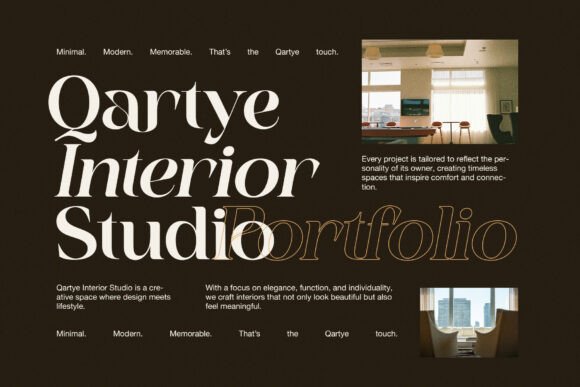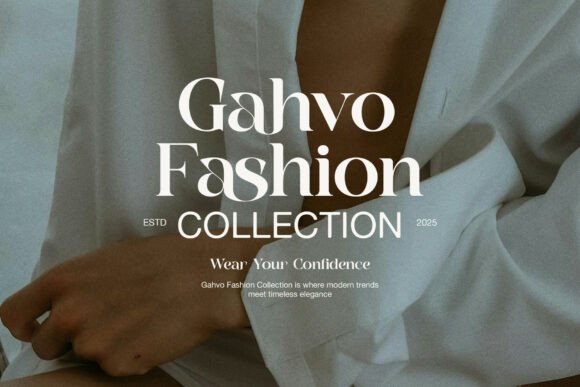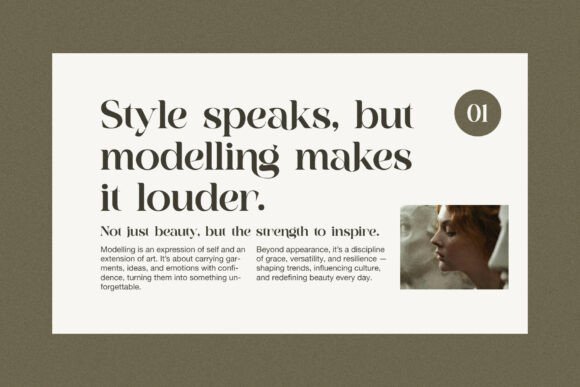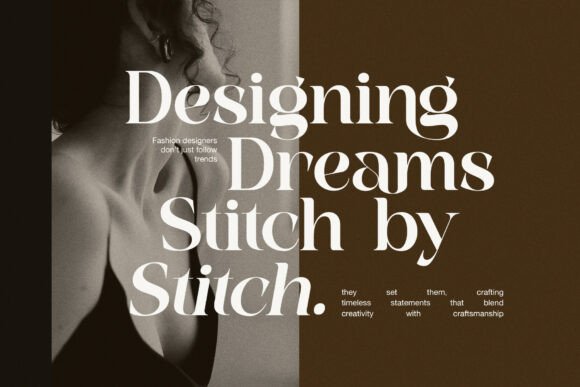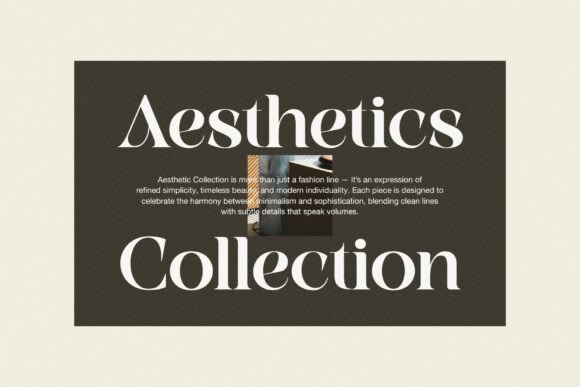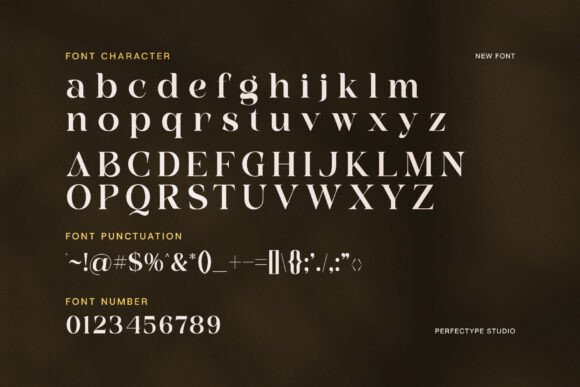
Discover the Elegance of Bagila Font: A Timeless Serif for Modern Design
In the world of typography, a font can make or break the aesthetic of a design project. For designers and crafters seeking a typeface that exudes calm beauty, balance, and refined clarity, Bagila Font is an exceptional choice. This elegant serif font is meticulously crafted to bring a sense of sophistication and warmth to any design, making it perfect for a wide range of applications.
The Inspiration Behind Bagila
Bagila’s design is rooted in the principles of editorial typography and the organic forms found in nature. By blending the classic structure of serif fonts with soft curves and gentle contrast, Bagila achieves a unique balance that feels both modern and timeless. This thoughtful approach to font design results in a typeface that is not only visually appealing but also highly legible across various mediums.
Key Features of Bagila Font
- Elegant Serif Structure: Bagila’s serif design adds a touch of sophistication to any text, making it ideal for high-end branding, editorials, and luxury goods.
- Soft Curves and Gentle Contrast: The font’s gentle curves and subtle contrast create a soothing visual experience, perfect for designs that require a calm and approachable tone.
- Carefully Crafted Letterforms: Each letterform in Bagila is meticulously designed to feel smooth and organic, ensuring that headlines and body text appear confident yet approachable.
- Strong Readability: Bagila’s design prioritizes readability, making it an excellent choice for both print and digital layouts, from books and magazines to websites and mobile applications.
One of the standout qualities of Bagila Font is its versatility. Designers can use it for a wide range of projects, including:
- Editorial Design: Bagila’s elegant serif structure and high readability make it perfect for magazines, newspapers, and books.
- Branding and Packaging: The font’s sophisticated and modern feel makes it suitable for luxury brands, high-end products, and premium services.
- Digital Media: Bagila’s legibility and aesthetic appeal make it an excellent choice for websites, mobile apps, and digital advertising.
Why Choose Bagila Font?
For designers and crafters seeking a font that combines elegance, readability, and versatility, Bagila Font is an exceptional choice. Here are a few reasons why:
- Timeless Design: Bagila’s classic serif structure and modern touches create a timeless look that won’t go out of style.
- Emotional Connection: The font’s warm and thoughtful feel helps create an emotional connection with the reader, making it perfect for designs that require a personal touch.
- Design Efficiency: With Bagila, designers can create stunning designs without visual tension, saving time and effort in the creative process.
Bagila Font is a stunning serif typeface that offers a unique blend of elegance, readability, and versatility. Inspired by editorial typography and natural forms, Bagila is perfect for designers and crafters seeking a font that exudes calm beauty, balance, and refined clarity. Whether you’re working on a luxury brand, editorial design, or digital media, Bagila Font is an excellent choice for creating visually appealing and effective designs.